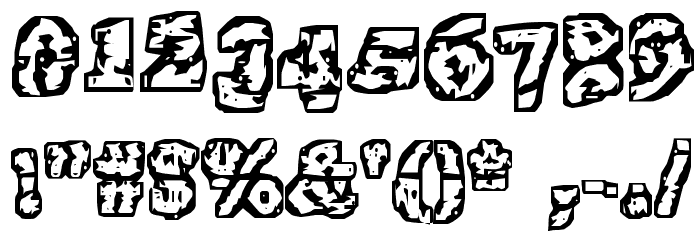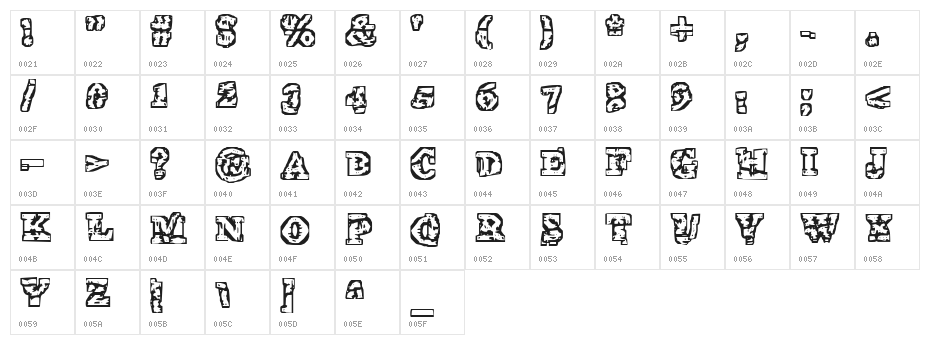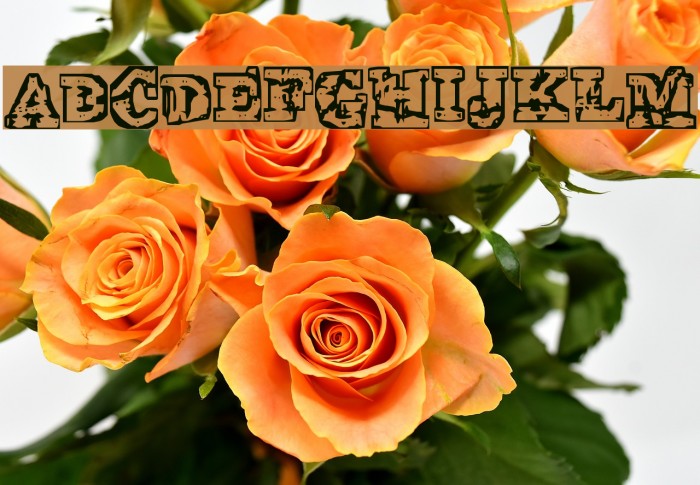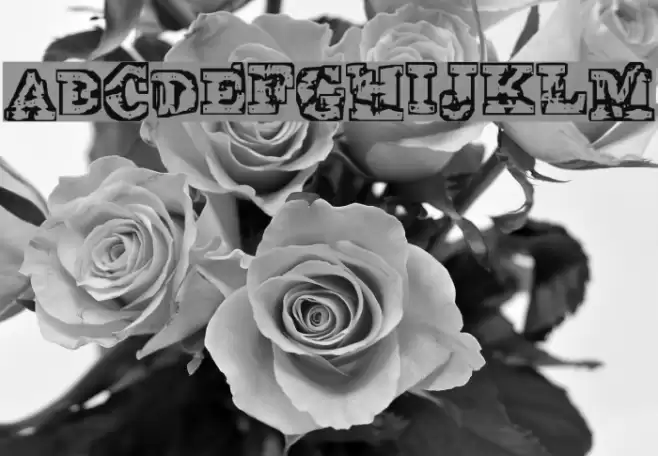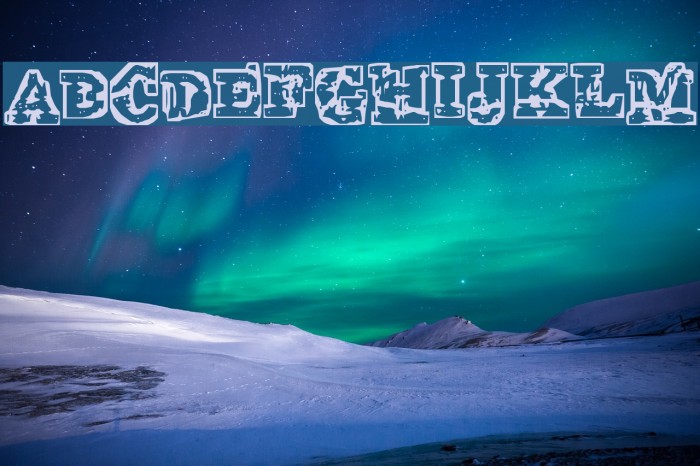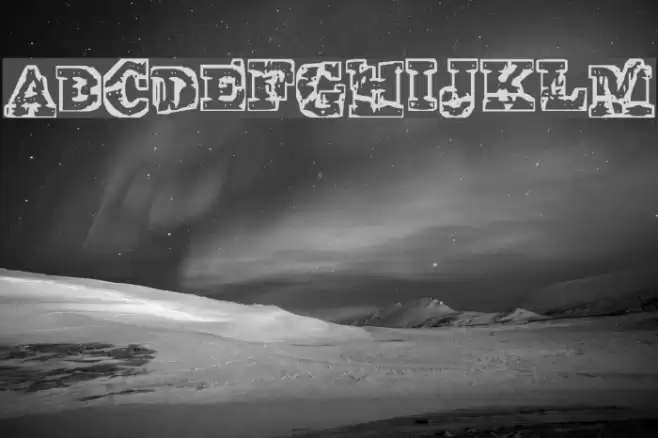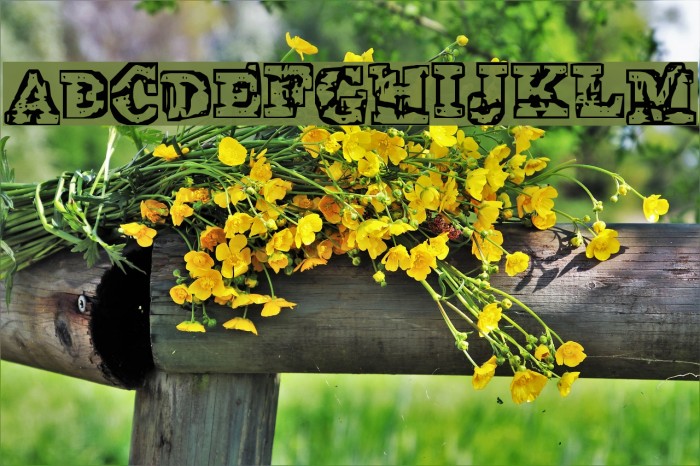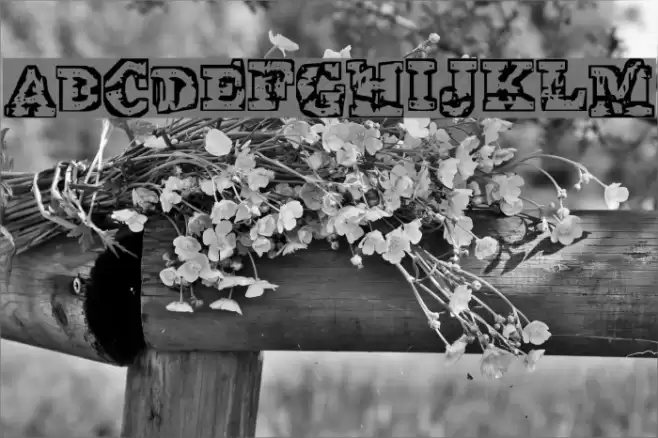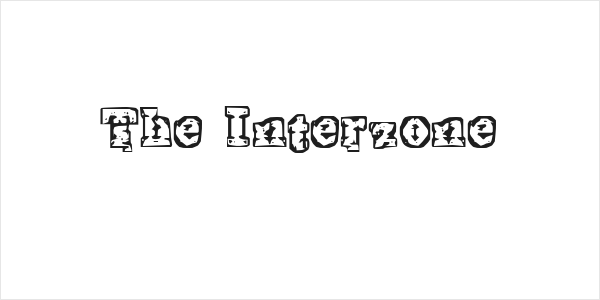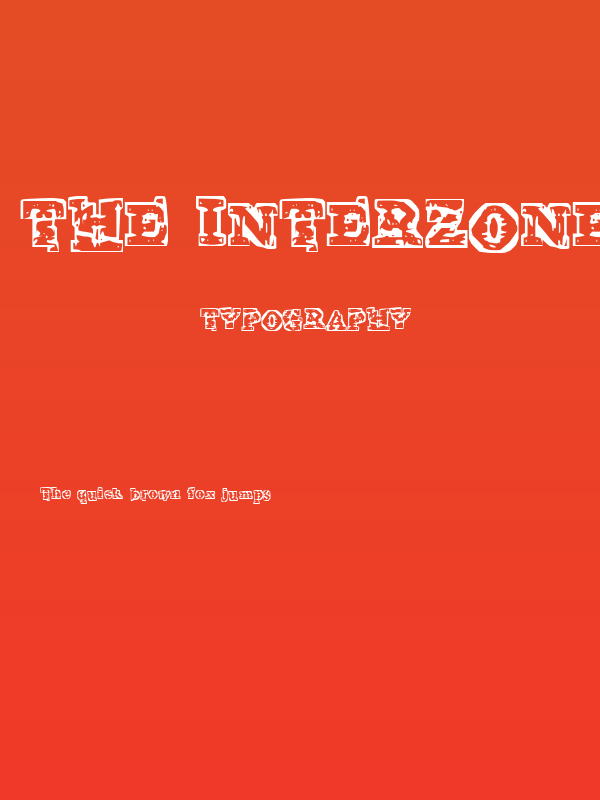
The Interzone Font
The Interzone Description
This font features a bold, distressed style with a grunge aesthetic. The characters are heavily textured, giving them a worn and rugged appearance. Each letter and number is uniquely designed with irregular edges and a patchy, eroded look, reminiscent of graffiti or urban decay. The font maintains a consistent weight throughout, with a strong presence that commands attention. Its distinctive style makes it ideal for projects that require a bold statement or a rebellious edge.
| Overall Style | Grunge, Urban, Edgy |
| Proposed Projects | Ideal for album covers, posters, streetwear branding, or any project needing an edgy, urban feel. |